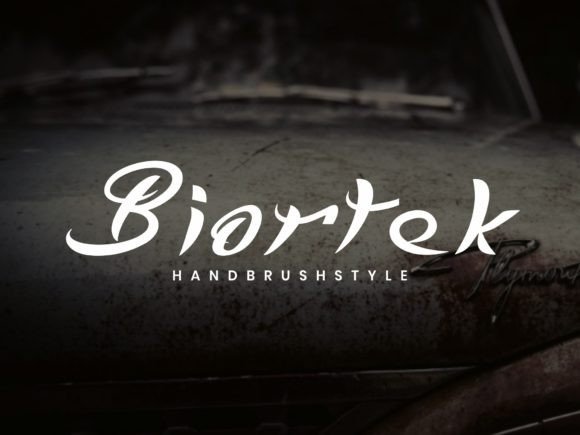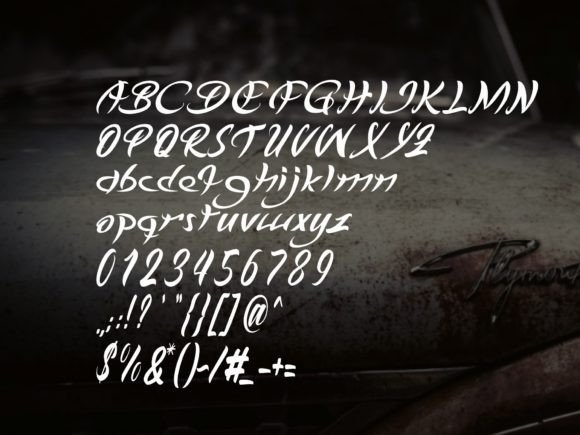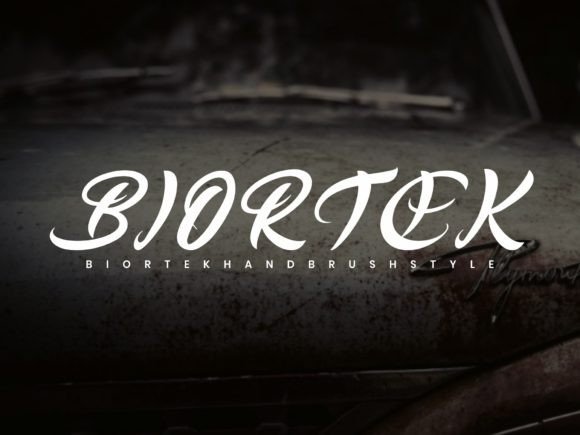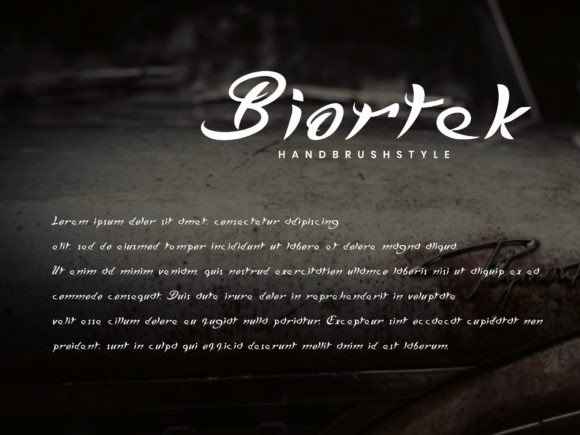
Biortek Font
Introducing the Biortek Font download—a graceful and modern brush script that blends simplicity with artistic flair. Biortek is ideal for designers who want an elegant handwritten look that still feels fresh and readable. Whether you’re working on a high-end branding campaign or designing for social media, Biortek delivers a touch of sophistication to your project.
Elegant Brush Script with Timeless Appeal
The Biortek Font download offers a clean yet expressive brush style that’s easy to work with in both print and digital formats. Its strokes are fluid and consistent, making it look handcrafted without sacrificing clarity. This balance between beauty and functionality makes Biortek a go-to choice for a variety of creative projects.
If you’re looking for a font that exudes elegance while keeping things simple, Biortek is the perfect fit. Its natural curves and brush-like finish give any design a personalized, polished touch.
Versatile and Professional
Biortek Font download is designed to be highly adaptable. From large-scale headers to small text accents, this font maintains its legibility and charm across all sizes. Whether you’re designing a sleek logo or crafting an inspirational quote graphic, Biortek brings professional results with ease.
• Logo designs with a personalized, handcrafted feel
• Magazine covers and layouts that need stylish script accents
• Social media content including Instagram posts, highlight covers, and branding
• Product packaging and labels that call for elegant brush typography
• Brochures and flyers where a modern, eye-catching title font is needed
• Custom quotes, invitations, and lifestyle graphics
Thanks to its natural brush script style, Biortek helps your work stand out with a sense of sophistication and artistic edge.
With full support for standard punctuation and multilingual characters, Biortek is ideal for both local and international design use. Whether you’re designing for an English-speaking audience or expanding into global markets, this font will serve your brand beautifully.
Why Choose Biortek Font?
If your project needs a clean, modern, and elegant script, the Biortek Font download offers everything you need. Its effortless style, fluid brush strokes, and adaptability make it a must-have for creative professionals.